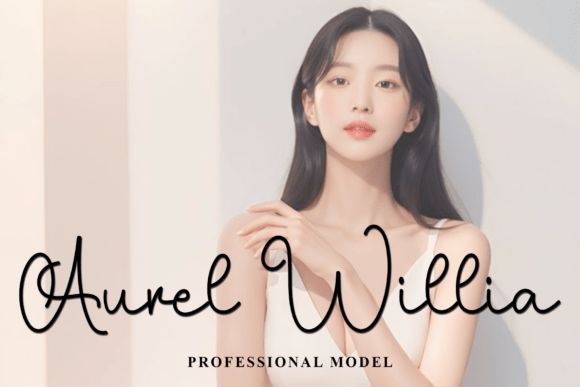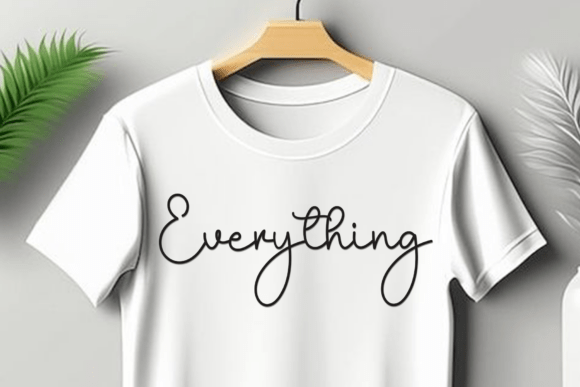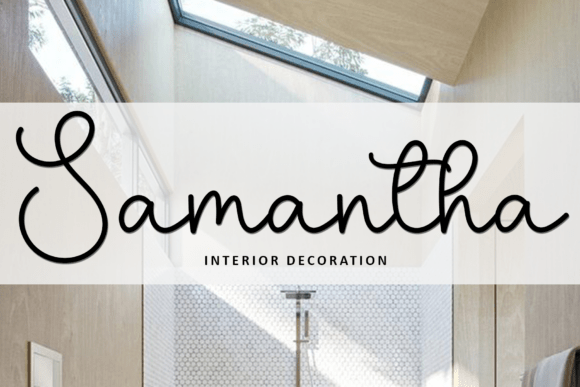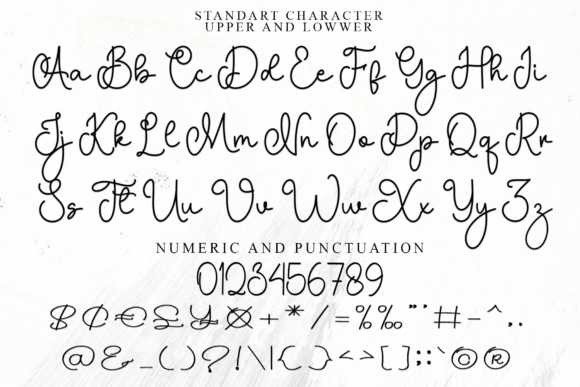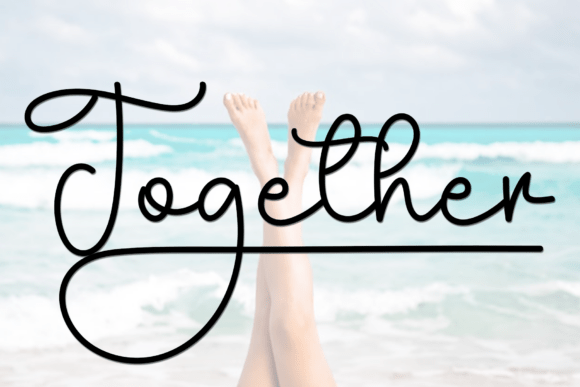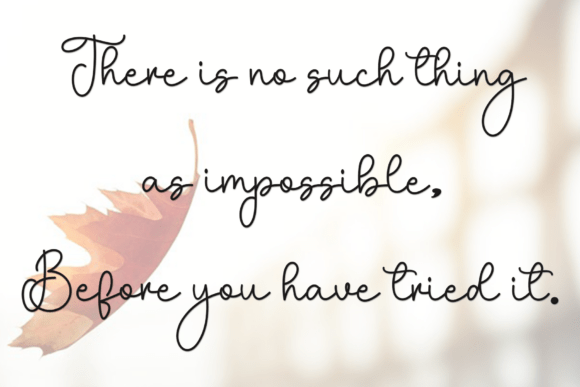
Adding a Touch of Elegance with Designer Magnolia Font
Have you ever stared at a blank page, trying to put your creative vision into words? For many designers, that moment of blank-page panic is a familiar feeling. But what if you had the perfect tool to bring your ideas to life? Enter Designer Magnolia Font, a stunning script font that exudes elegance and sophistication.
Designed to add a handwritten touch to your designs, Designer Magnolia Font is perfect for wedding invitations, thank you cards, quotes, greeting cards, logos, business cards, and more. Its versatility and refined beauty make it an invaluable asset for designers looking to elevate their work.
With Designer Magnolia Font, you’ll be able to create designs that are truly unforgettable. Whether you’re a seasoned pro or just starting out, this font is sure to inspire your creativity and help you achieve your design goals.
Designer Magnolia Font Key Features
- Unique Characteristics: Elegant, cursive script with a touch of vintage charm, ideal for wedding invitations, greeting cards, and other creative projects
- Font Style: Script, handwritten
Designer Magnolia Font Review
I’ve had the chance to work with the Designer Magnolia Font, and here’s my honest take on it. ✨
- Beautiful floral-inspired design, perfect for creating a whimsical and feminine look.
- Highly legible and clear, making it suitable for body text and titles alike.
- Excellent support for Latin-based languages, with a wide range of glyphs and diacritical marks.
- Easy to use, with a clean and intuitive design that’s a pleasure to work with.
However, there are a few limitations to keep in mind: ⚠️
- Lack of support for non-Latin scripts, which may be a deal-breaker for some designers.
- Not ideal for use in small sizes, as the details may become lost.
- No bold or italic versions available, which may limit its versatility.
Overall, I think the Designer Magnolia Font is a lovely addition to any designer’s toolkit. While it may have some limitations, its unique design and high legibility make it a great choice for the right projects.
Designer Magnolia Font Practical Application Guide
The Designer Magnolia Font is a versatile and elegant font that can be used in various design applications. To use it, follow these steps:
Platform-Specific Tips
In Canva, you can easily access the Designer Magnolia Font in the font library. Use it to create stunning graphics, social media posts, and presentations.
In Adobe Photoshop and Illustrator, use the Designer Magnolia Font to create custom typography, logos, and graphics. Experiment with font combinations and styles to add depth and visual interest.
In PowerPoint and Word, use the Designer Magnolia Font to add a touch of elegance to your presentations and documents. Use it for headings, titles, and body text to create a cohesive look.
The Designer Magnolia Font is ideal for:
- Business cards and marketing materials
- Wedding and event signage
- Editorial and magazine layouts
Getting the Most Out of the Designer Magnolia Font
To get the most out of the Designer Magnolia Font, experiment with different font sizes, styles, and colors. Pair it with other elegant fonts to create a sophisticated look. Use it in combination with bold and italic styles to add emphasis and visual interest.
Alternatives to Designer Magnolia Font
Great Vibes Font is a beautiful, elegant script font perfect for adding a touch of sophistication to your designs. It’s ideal for use in invitations, wedding stationery, and other high-end branding materials.
Compared to Designer Magnolia Font, Great Vibes Font has a more refined and luxurious feel, making it a great choice for upscale designs. It also has a more uniform letter spacing, which can make it easier to read at larger font sizes.
Carolyna Pro Font is a modern script font with a feminine touch. It’s perfect for use in branding, packaging, and editorial designs where a touch of elegance is needed.
Compared to Designer Magnolia Font, Carolyna Pro Font has a more contemporary feel and a wider range of font weights, making it a great choice for designers who want a lot of flexibility in their font options.